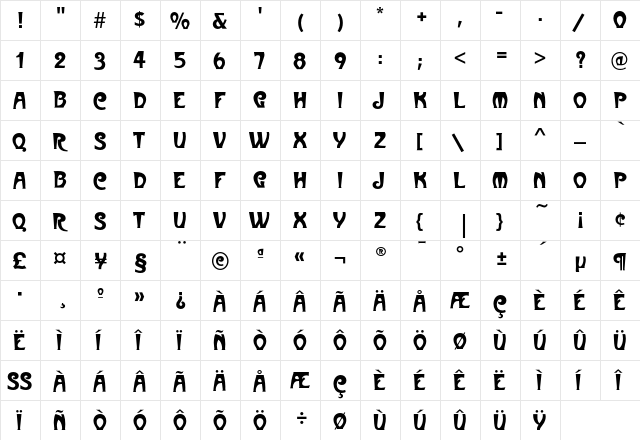
MetropolitainEF Regular
Design Context for MetropolitainEF Typeface
MetropolitainEF is a composed and adaptable typeface that performs quietly and consistently across a wide range of design contexts.